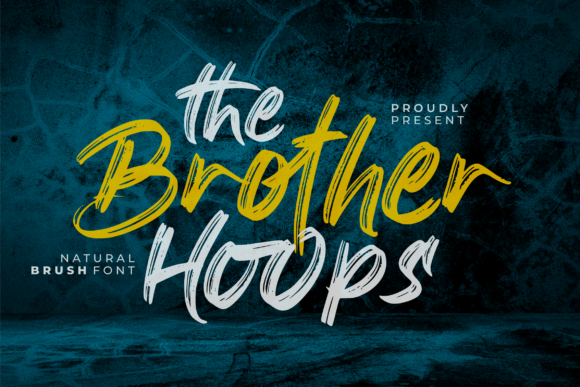
**Introducing The Brother Hoops Font: A Handcrafted Masterpiece for Creative Expression**
Step into the realm of The Brother Hoops Font, where elegance, charm, and artistic prowess intertwine to create a brush-lettered masterpiece. Embark on a typographic adventure that captivates your audience and leaves a lasting impression.
With its free-flowing strokes and enchanting curves, The Brother Hoops Font dances across your designs, embodying the essence of creativity and personal expression. Its unique charm transforms ordinary words into captivating messages, adding a touch of sophistication and magic to every project.
Express Your Unique Style:
The Brother Hoops Font is more than just a font; it's a versatile tool that empowers you to unleash your unique style. Whether you're crafting logos, invitations, headings, or custom t-shirts, this font adapts seamlessly to your creative vision, enhancing your designs with a touch of elegance and authenticity.
Take Your Designs to New Heights:
From letterheads and signage to labels and posters, The Brother Hoops Font elevates your designs to new heights. Its graceful lines and captivating texture add depth and dimension to your projects, transforming them into captivating visual expressions that demand attention.
Make a Statement with Every Letter:
With The Brother Hoops Font, every letter carries a weight of meaning and emotion. Its graceful curves and subtle variations create a visual symphony that speaks to the heart and captivates the eye. Whether you're crafting wedding invitations or creating eye-catching badges, this font ensures your message is delivered with impact and style.